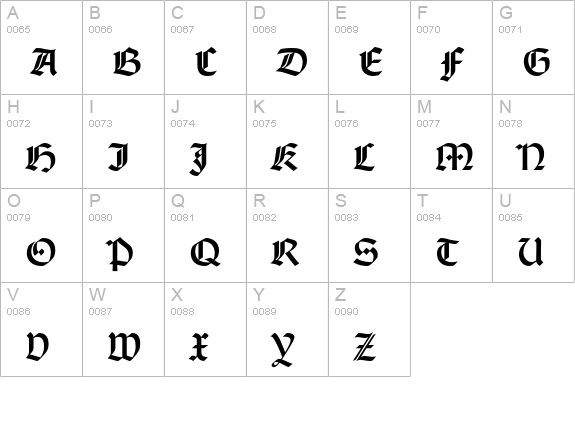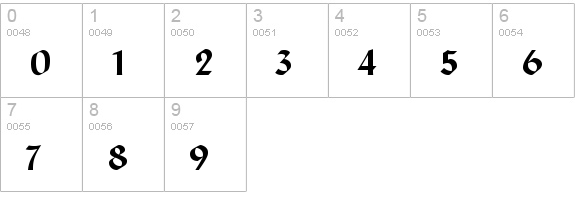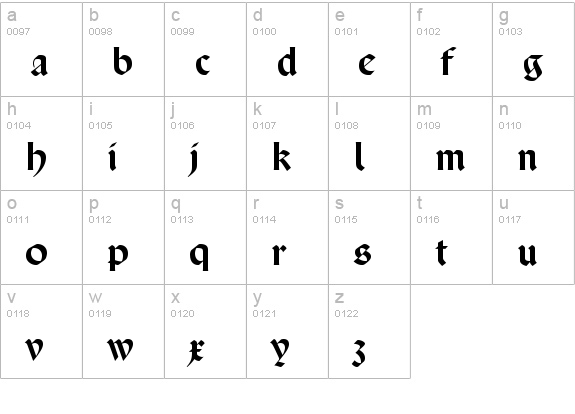
San Marco Font Details
San Marco font is a captivating and versatile typeface that effortlessly combines elegance with a touch of playfulness. With its clean lines and delicate curves, this font adds a touch of sophistication to any design project. Whether used for headlines, logos, or body text, San Marco adds a unique charm that is sure to capture attention. One of the most appealing aspects of San Marco font is that it is free to use. This means that designers, artists, and creatives of all kinds can enjoy the beauty and versatility of this font without any cost. It's an excellent choice for those who are looking to add a touch of class to their work without breaking the bank. Downloading San Marco font is easy and convenient. Simply visit FontsMarket.com, where you can find a wide range of high-quality fonts, including San Marco. With just a few clicks, you can have this stunning font at your fingertips, ready to elevate your designs to a whole new level. The versatility of San Marco font is unparalleled. It can be used in a variety of design projects, from elegant invitations and wedding stationary to modern packaging and branding materials. Its timeless appeal makes it suitable for both traditional and contemporary designs, ensuring that it remains a valuable asset in any designer's toolkit. With its generous x-height and well-spaced letters, San Marco font is highly legible even at smaller sizes, making it ideal for body text as well. Its smooth curves and balanced proportions create a harmonious visual rhythm that enhances readability and ensures a pleasant reading experience. In conclusion, San Marco font is a stunning typeface that effortlessly combines elegance and playfulness. Its versatility and affordability, coupled with its timeless appeal, make it a must-have for designers of all levels. Download San Marco font for free at FontsMarket.com and unleash its beauty in your next design project.